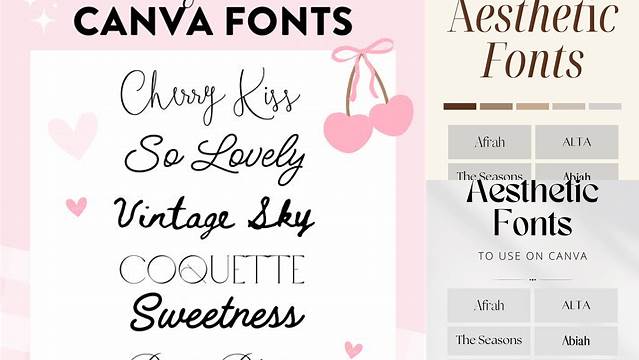
Coquette Canva Fonts: Top Picks For A Chic Aesthetic
Hey guys! Are you looking to add that trendy, ultra-feminine coquette aesthetic to your designs? One of the easiest ways to achieve this is by choosing the right fonts, and guess what? Canva has a ton of amazing options! In this article, we're diving deep into the world of coquette Canva fonts, exploring the best choices to make your projects look absolutely adorable. We'll cover everything from classic serifs to playful scripts, ensuring you find the perfect font to match your vision. So, grab your digital design tools, and let's get started!
1. Understanding the Coquette Aesthetic in Design
Before we jump into specific fonts, let's quickly break down the coquette aesthetic itself. Think soft, feminine, and a little bit vintage. It's all about delicate details, pastel colors, and a touch of romance. To nail this vibe in your designs, your font choices are super important. You'll want fonts that are elegant, playful, and maybe even a little bit whimsical. When choosing coquette Canva fonts, consider fonts with elegant curves, delicate serifs, and a touch of vintage charm. Fonts can evoke a feeling of nostalgia and romance, so think about typefaces that have a vintage or handwritten feel. Light, airy fonts often capture the delicate essence of the coquette aesthetic, while script fonts can add a touch of playfulness and charm. Combining different font styles, such as a classic serif with a flowing script, can also add depth and visual interest to your designs. Ultimately, the goal is to select fonts that harmonize with the overall aesthetic and enhance the message you want to convey.
2. Best Serif Fonts for Coquette Designs
Serif fonts are your go-to for adding a touch of classic elegance. These fonts, with their little feet (serifs), can make your text look polished and refined. For coquette Canva fonts, think about serifs that aren't too harsh – something with a bit of softness and curve. Think about fonts like Playfair Display, which is elegant and has a beautiful contrast between thick and thin strokes. Or maybe try something like Lora, which has a contemporary feel while still being readable and stylish. Another fantastic option is Bodoni Moda, a classic serif font with a high-fashion feel that’s perfect for adding a touch of sophistication to your coquette-inspired designs. Serif fonts are known for their readability and formal appearance, making them ideal for headlines, body text, and logos. The serifs add a level of detail and sophistication that can elevate the overall design. In the context of the coquette aesthetic, a well-chosen serif font can create a sense of timeless elegance and understated charm. Experiment with different weights and styles within the serif family to find the perfect fit for your project.
3. Script Fonts that Capture the Coquette Charm
If you really want to capture the essence of the coquette style, script fonts are your best friend. They add a handwritten, personal touch that's incredibly charming. When choosing coquette Canva fonts in script styles, think flowy and elegant, but still readable. Something like Great Vibes or Allura is perfect. These fonts have beautiful, flowing strokes that mimic calligraphy, adding a touch of romance and whimsy. Another lovely option is Playlist Script, which has a more casual yet still elegant vibe. Script fonts are particularly effective for creating logos, headings, and short quotes. The fluidity and personality of script fonts can convey a sense of individuality and creativity, making your designs stand out. When using script fonts, be mindful of readability, especially in smaller sizes. Pair them with a simpler sans-serif or serif font for body text to ensure a balanced and cohesive design. The key is to use script fonts strategically to add flair and personality without sacrificing clarity.
4. Sans-Serif Fonts for a Modern Coquette Twist
Sans-serif fonts, which lack the little feet of serif fonts, can bring a modern edge to the coquette aesthetic. These fonts are clean and minimalist, but don't think they can't be coquette! Choosing the right sans-serif coquette Canva fonts can create a chic, contemporary vibe. Fonts like Montserrat or Raleway are great options. They're clean and versatile but still have a softness that works well with the coquette style. Another excellent choice is Avenir, which has a geometric yet friendly appearance. San-serif fonts provide a balance to the more ornate elements of the coquette aesthetic, preventing the design from becoming overly fussy. They are particularly effective for body text, captions, and designs that need a modern, understated touch. When incorporating sans-serif fonts into your coquette-inspired projects, consider the overall visual hierarchy and how the font complements the other elements in your design. The goal is to create a harmonious blend of classic and contemporary elements.
5. Playful Fonts for a Whimsical Touch
Adding a playful font can give your coquette designs a fun, youthful vibe. These fonts aren't super formal, but they have a charm that's hard to resist. For coquette Canva fonts that are playful, think about fonts like Amatic SC, a quirky, hand-drawn font that's perfect for headings. Another great option is Baloo 2, which has rounded, friendly letterforms. Or try something like Bubblegum Sans for a truly whimsical feel. Playful fonts are ideal for projects targeting a younger audience or those that aim to evoke a sense of joy and lightheartedness. They can be particularly effective in social media graphics, invitations, and branding materials for creative businesses. When using playful fonts, ensure they align with the overall tone and message of your design. While they can add personality and charm, they should be used sparingly to avoid overwhelming the visual appeal. Pairing a playful font with a more neutral font can create a balanced and engaging design.
6. Vintage-Inspired Fonts for a Nostalgic Feel
The coquette aesthetic often draws inspiration from vintage styles, so incorporating vintage-inspired fonts is a must. These fonts bring a sense of nostalgia and timelessness to your designs. When you're looking for coquette Canva fonts that have a vintage vibe, think about fonts that mimic old-fashioned lettering or signage. Something like Cinzel Decorative has a beautiful Art Deco feel. Or maybe try something like Libre Baskerville, a classic serif font with a vintage charm. Another great option is Playfair Display, which blends modern and vintage elements seamlessly. Vintage-inspired fonts can add depth and character to your designs, making them feel unique and special. They are particularly effective in branding materials, posters, and projects that aim to evoke a sense of history or tradition. When using vintage fonts, consider the context and ensure they align with the overall aesthetic. Pairing them with modern elements can create a captivating contrast, while using them in a monochromatic palette can enhance their vintage appeal.
7. Combining Fonts for a Dynamic Design
One of the best ways to create a visually interesting design is to combine different fonts. But it’s important to do it right! When mixing coquette Canva fonts, think about creating contrast. Pair a serif font with a sans-serif, or a script font with a more structured typeface. For example, you could use Playfair Display (a serif) for headings and Montserrat (a sans-serif) for body text. Or try using Great Vibes (a script) for accents and Open Sans (a sans-serif) for the main text. The key is to ensure the fonts complement each other without clashing. A good rule of thumb is to stick to two or three fonts in a single design to maintain consistency. Pay attention to the font weights and sizes to create a clear visual hierarchy. A well-executed font pairing can elevate your design and make it more engaging and professional.
8. Utilizing Canva's Font Pairing Suggestions
Canva actually has some pretty awesome tools to help you choose fonts, including font pairing suggestions. If you’re feeling stuck, this is a great place to start. Canva often suggests combinations that work well together, taking the guesswork out of the process. When exploring coquette Canva fonts, look for their suggested pairings within the platform. You'll often find combinations that you might not have considered, leading to unique and eye-catching designs. These suggestions are based on design principles and ensure the fonts harmonize effectively. Canva’s font pairing suggestions can be a valuable resource, especially for those new to design or looking for fresh ideas. However, don't be afraid to experiment and deviate from the suggestions if you have a specific vision in mind. The goal is to use these tools as a starting point and then personalize your font choices to reflect your unique style and aesthetic.
9. Best Free Coquette Fonts on Canva
Good news, guys! You don’t have to spend a fortune to get amazing fonts. Canva has a ton of free options that are perfect for the coquette aesthetic. When you’re hunting for free coquette Canva fonts, consider options like Lora, a beautiful serif font that's both elegant and readable. Or try Montserrat, a versatile sans-serif that works well in various designs. Great Vibes is another fantastic free script font that adds a touch of romance. These free fonts offer a wide range of styles, from classic to modern, ensuring you can find the perfect fit for your project. Utilizing free fonts allows you to create stunning designs without breaking the bank. They are particularly beneficial for beginners or those working on projects with budget constraints. However, it’s important to note that while free fonts are readily available, they should be used responsibly. Always check the licensing terms to ensure you’re using them in accordance with the creator’s guidelines. With a little creativity, you can achieve a professional and polished look using Canva's free font options.
10. Premium Coquette Fonts Worth the Investment
If you're serious about your designs, investing in premium fonts can be totally worth it. Premium fonts often have more refined details, unique styles, and additional features like alternate characters and ligatures. When exploring coquette Canva fonts, consider investing in fonts like Futura, a classic geometric sans-serif with a timeless appeal. Or perhaps something like Mrs Eaves, a sophisticated serif font that exudes elegance. Another excellent premium option is Adorn, a font family with various styles that can cater to different coquette-inspired designs. Premium fonts can elevate your designs, giving them a polished and professional look. They are particularly beneficial for branding projects, where consistency and quality are crucial. Investing in premium fonts demonstrates a commitment to excellence and can set your designs apart from the competition. Before purchasing a premium font, ensure it aligns with your design goals and that you have the appropriate licensing for your intended use. While they may require an initial investment, premium fonts can provide long-term value and versatility in your design toolkit.
11. Pairing Fonts for Headlines and Body Text
Creating a clear visual hierarchy in your designs is essential, and one of the best ways to achieve this is by pairing different fonts for headlines and body text. For coquette Canva fonts, a classic approach is to use a serif font for headlines and a sans-serif font for body text, or vice versa. This contrast helps the headline stand out while maintaining readability for the main content. For example, you might pair Playfair Display (serif) for headlines with Open Sans (sans-serif) for body text. Alternatively, you could use a script font for headlines to add a touch of elegance and pair it with a clean sans-serif like Montserrat for the body text. When selecting font pairings, consider the overall tone and style of your design. The goal is to create a harmonious balance that enhances the visual appeal and readability of your content. Experiment with different combinations and pay attention to how the fonts interact with each other to achieve the desired effect. A well-thought-out font pairing can significantly improve the professionalism and impact of your designs.
12. Font Sizes and Spacing for Readability
Choosing the right fonts is just the first step. You also need to think about font sizes and spacing to make sure your text is readable. For coquette Canva fonts, it’s super important to adjust the size and spacing to ensure everything looks balanced and easy to read. For headlines, you'll generally want a larger font size to grab attention, while body text should be smaller and more comfortable to read. Pay attention to the line height (leading) and letter spacing (tracking) to prevent the text from looking too cramped or too spread out. Proper spacing enhances readability and gives your design a polished, professional appearance. Experiment with different font sizes and spacing settings to find the optimal balance for your project. Consider the context in which your design will be viewed, such as on a screen or in print, and adjust the settings accordingly. A well-spaced and properly sized font can make a significant difference in how your message is received and understood.
13. Using Color to Enhance Your Fonts
Color plays a huge role in design, and it can really enhance your fonts. When working with coquette Canva fonts, think about using soft, pastel colors that align with the aesthetic. Colors like blush pink, lavender, and mint green work beautifully. You can use color to make certain words or phrases stand out, or to create a cohesive look across your entire design. Contrast is also key – make sure your font color contrasts well with the background so it’s easy to read. Experiment with different color combinations to find what works best for your project. Consider the emotional impact of colors and how they can contribute to the overall mood of your design. For the coquette aesthetic, a palette of soft and delicate colors can evoke a sense of romance and femininity. Using color strategically can elevate your font choices and create a visually appealing and impactful design.
14. Text Effects to Add Flair to Coquette Fonts
Canva offers a range of text effects that can add extra flair to your coquette Canva fonts. These effects can range from simple drop shadows to more elaborate outlines and gradients. Using text effects can help your fonts stand out and create a more dynamic design. For example, a subtle drop shadow can give your text a sense of depth, while an outline can make it more visible against a busy background. Gradients can add a modern and stylish touch to your fonts, especially when using colors that align with the coquette aesthetic. However, it’s important to use text effects sparingly to avoid overwhelming your design. The goal is to enhance the fonts, not distract from them. Experiment with different effects and settings to find the perfect balance for your project. Consider the overall style and tone of your design and choose effects that complement rather than clash with the aesthetic. When used effectively, text effects can transform your fonts and create a visually captivating design.
15. Font Hierarchy: Guiding the Viewer's Eye
Creating a clear font hierarchy is crucial for guiding the viewer's eye through your design. Font hierarchy involves using different font sizes, weights, and styles to indicate the importance of different elements on the page. For coquette Canva fonts, this means using a larger, bolder font for headlines and subheadings, and a smaller, more readable font for body text. You can also use different font styles, such as a script font for headings and a sans-serif font for body text, to create visual contrast. A well-defined font hierarchy helps viewers quickly understand the structure of your content and find the information they need. It also adds visual interest and makes your design more engaging. Consider the overall layout and composition of your design when establishing font hierarchy. Ensure that the fonts work together harmoniously and that the visual flow is clear and logical. A thoughtfully crafted font hierarchy can significantly enhance the effectiveness of your design.
16. Kerning and Tracking: Fine-Tuning Your Typography
Kerning and tracking are essential typographic adjustments that can significantly impact the appearance of your fonts. Kerning refers to the spacing between individual letters, while tracking refers to the uniform spacing between all letters in a word or phrase. Fine-tuning these settings for coquette Canva fonts can enhance readability and create a more polished look. Adjusting the kerning can help eliminate awkward gaps between letters, while modifying the tracking can make your text feel more open and airy or more condensed and impactful. Experiment with different kerning and tracking settings to find the optimal balance for your font choices. Pay particular attention to headlines and logos, where subtle adjustments can make a big difference. Using these techniques can elevate the overall quality of your typography and contribute to a more professional and aesthetically pleasing design.
17. Font Licensing: What You Need to Know
Understanding font licensing is crucial for using fonts legally and ethically. Font licenses specify how you can use a particular font, including whether it can be used for commercial projects, personal projects, or both. When working with coquette Canva fonts, it's important to check the licensing terms for each font you use, especially if you're using premium fonts or fonts from external sources. Free fonts often come with specific licensing restrictions, so be sure to read the fine print. Using a font without the proper license can lead to legal issues, so it's always best to err on the side of caution. Canva's built-in fonts typically have licenses that allow for both personal and commercial use, but it's still a good practice to be aware of the terms. Familiarize yourself with the different types of font licenses and ensure that you comply with the requirements for each font you use. Proper font licensing demonstrates respect for font creators and protects you from potential legal liabilities.
18. Avoiding Font Clutter: Keeping It Simple
When it comes to fonts, less is often more. Overusing fonts in your designs can create a cluttered and overwhelming look. For coquette Canva fonts, it's best to stick to a limited number of font styles, typically two or three, to maintain consistency and visual harmony. Too many fonts can distract from your message and make your design feel amateurish. Choose fonts that complement each other and work well together. Prioritize readability and ensure that your font choices align with the overall aesthetic of your project. Simplicity is key to creating a clean, professional, and impactful design. Focus on selecting high-quality fonts and using them strategically to enhance your message. Avoiding font clutter allows your design to breathe and ensures that your fonts make a positive contribution to the overall composition.
19. Font Weight and Style Variations
Most fonts come with different weights and styles, such as bold, italic, and light. Utilizing these variations can add depth and interest to your designs without having to use multiple font families. For coquette Canva fonts, consider using different weights to create emphasis and hierarchy. For example, you might use a bold weight for headlines and a regular weight for body text. Italic styles can be used to highlight specific words or phrases, while light weights can add a delicate touch. Experimenting with font weights and styles allows you to create visual contrast and enhance the readability of your text. These variations can also be used to convey different moods and tones, making your designs more expressive and engaging. A well-balanced use of font weights and styles can significantly improve the visual impact of your typography.
20. Using Fonts to Convey Emotions
Fonts have the power to evoke emotions and convey different moods. Choosing the right fonts for your coquette Canva fonts can help you communicate the desired feeling in your designs. Script fonts often convey elegance and romance, while serif fonts can create a sense of tradition and sophistication. Sans-serif fonts tend to feel modern and clean, while playful fonts can evoke joy and whimsy. Consider the emotional impact of each font you use and how it aligns with the overall message and aesthetic of your project. A thoughtful selection of fonts can enhance the emotional connection with your audience and make your designs more memorable. Use fonts strategically to tell a story and create a cohesive visual experience. The emotional resonance of your font choices can significantly amplify the impact of your design.
21. Coquette Font Trends in 2024
Staying up-to-date with the latest font trends can help your designs feel current and stylish. In 2024, some of the top coquette Canva fonts trends include a resurgence of elegant serifs, handwritten scripts, and playful, whimsical fonts. Vintage-inspired fonts are also making a comeback, adding a touch of nostalgia and charm. Additionally, there's a growing trend towards pairing classic fonts with modern sans-serifs for a balanced and contemporary look. Keeping an eye on these trends can inspire you to experiment with new font combinations and styles. However, it's important to choose trends that align with your personal style and the overall aesthetic of your projects. While trends can be a great source of inspiration, authenticity is key to creating designs that resonate with your audience. Incorporate font trends thoughtfully and ensure they enhance rather than overshadow your creative vision.
22. Creating a Font Swatch Library in Canva
Building a font swatch library in Canva can streamline your design process and help you maintain consistency across your projects. A font swatch library is a collection of your favorite coquette Canva fonts and font pairings, along with their corresponding styles, sizes, and colors. Having a library like this makes it easy to quickly select and apply fonts to your designs without having to re-experiment each time. To create a font swatch library, simply create a new Canva document and add text boxes showcasing your favorite fonts and font combinations. Include details such as font names, sizes, weights, and color codes. You can organize your library by font style, project type, or any other criteria that make sense for your workflow. Regularly updating your library with new fonts and combinations can help you stay inspired and ensure your designs always look fresh. A well-maintained font swatch library is a valuable asset for any designer, saving time and effort while promoting consistency and professionalism.